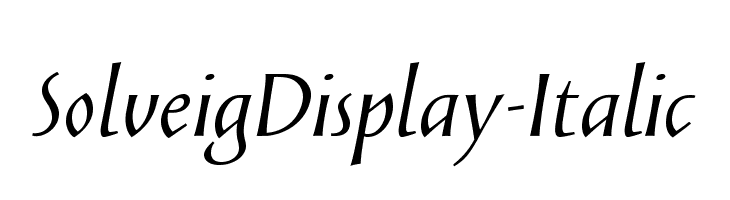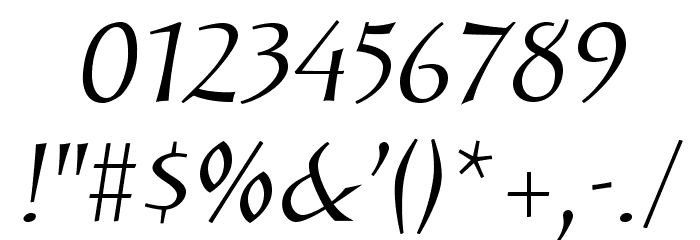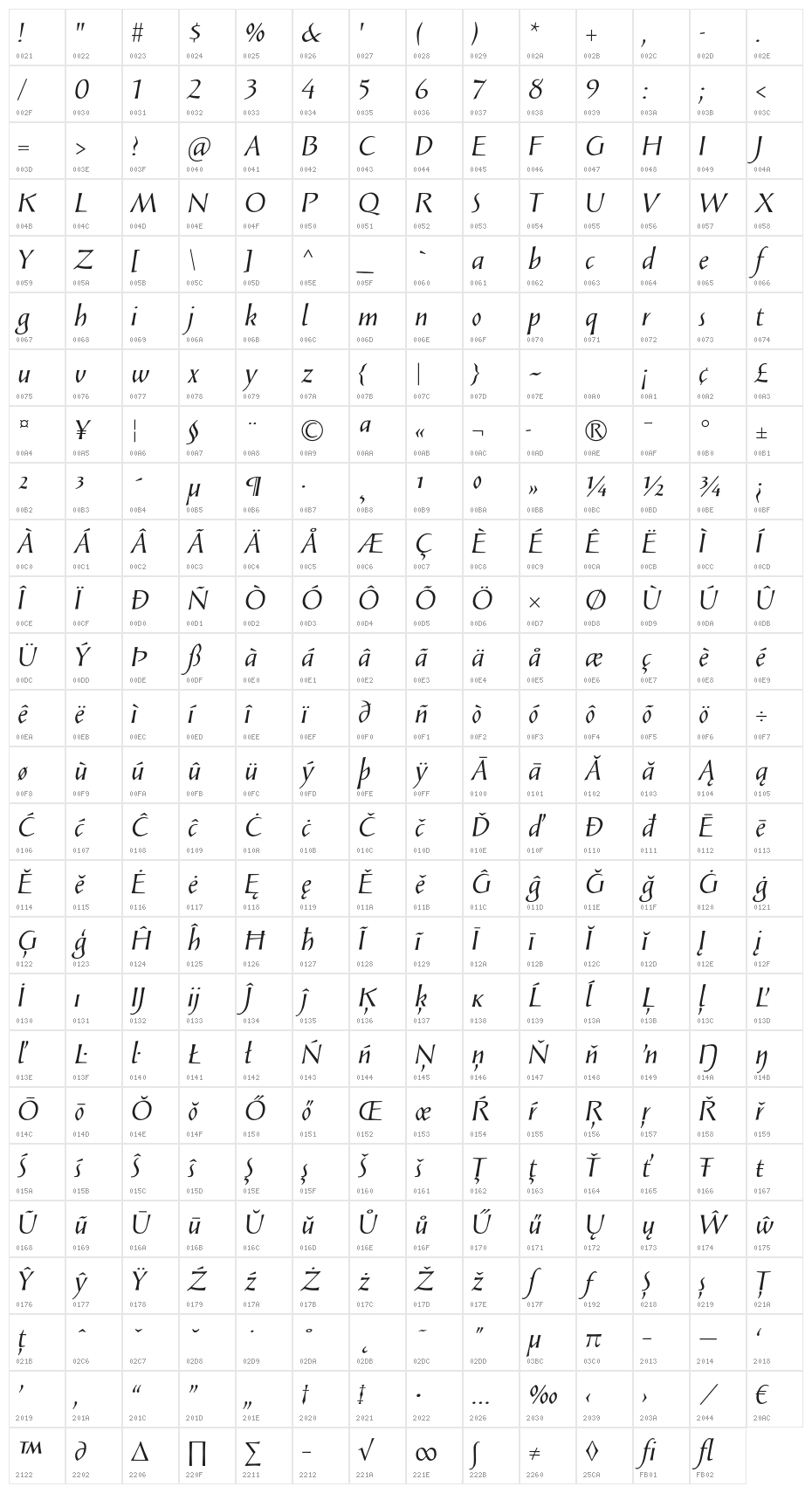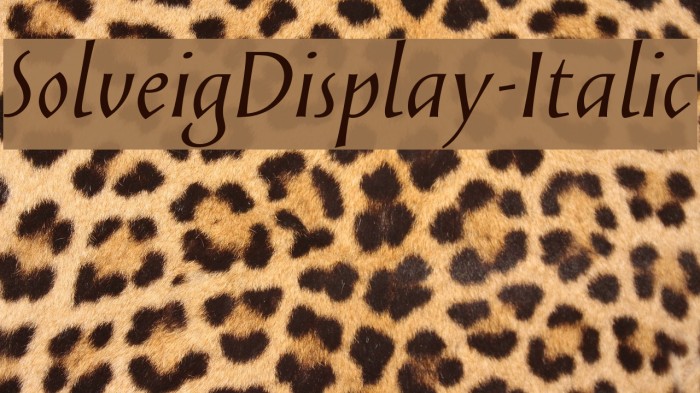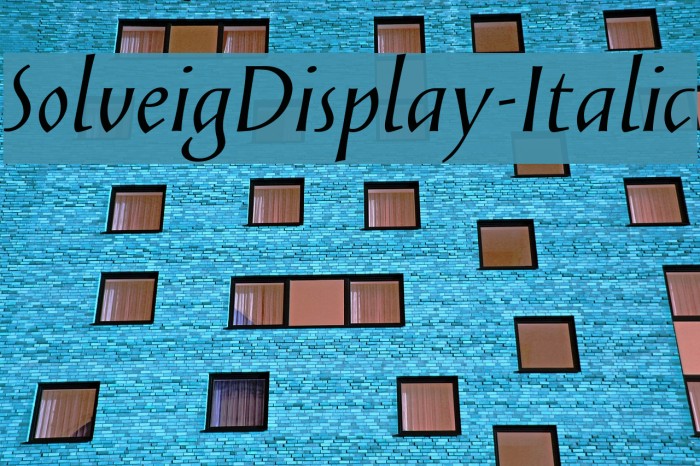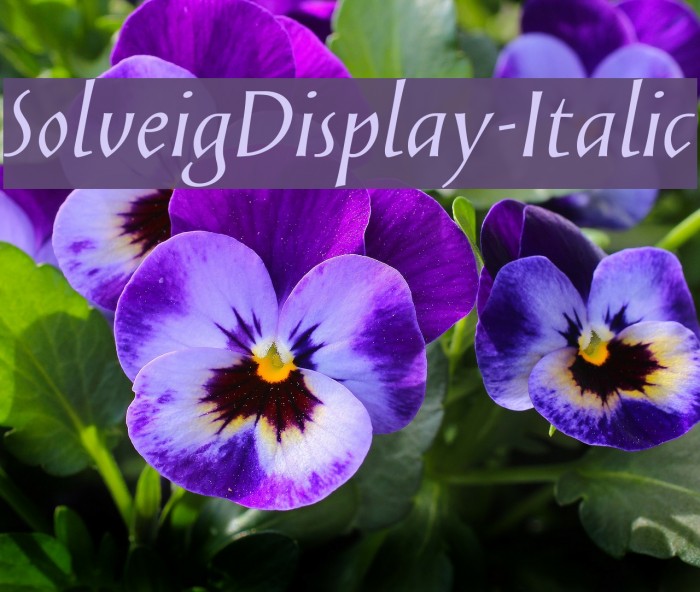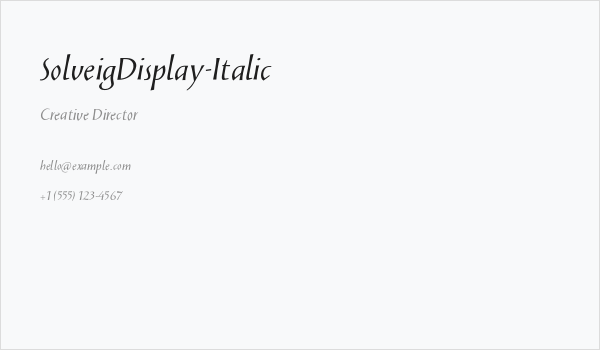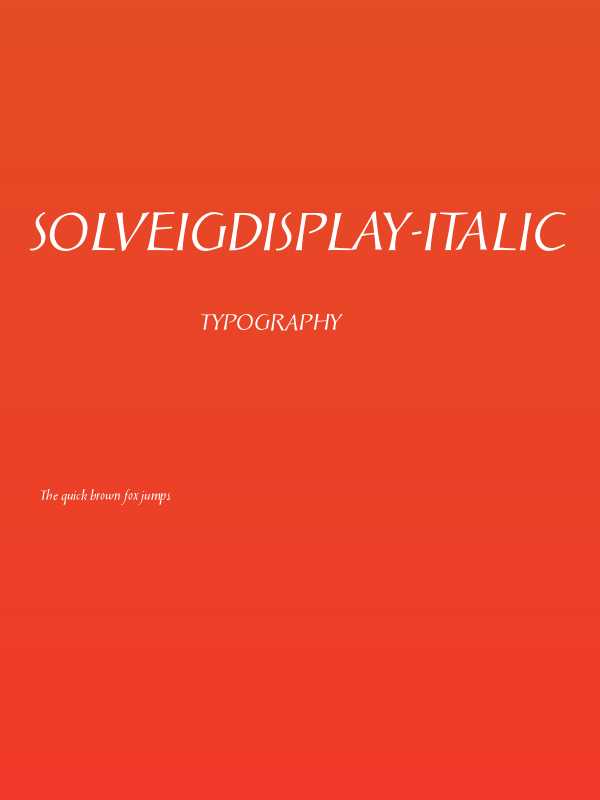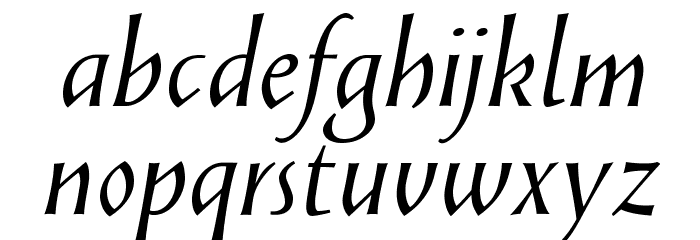
SolveigDisplay-Italic Font
SolveigDisplay-Italic Description
This font features an elegant and sophisticated italic style, characterized by its flowing, cursive-like strokes and graceful curves. The uppercase letters exhibit a refined slant, adding a dynamic and fluid motion to the text. The lowercase letters maintain a consistent style, with smooth transitions and a balanced appearance. The numerals are designed with a similar elegance, ensuring readability while maintaining the overall aesthetic. Special characters are thoughtfully integrated, complementing the font's cohesive look. This typeface exudes a sense of classic beauty and timelessness, making it suitable for a variety of applications.
| Proposed Projects | Ideal for wedding invitations, luxury branding, editorial design, and elegant signage. |